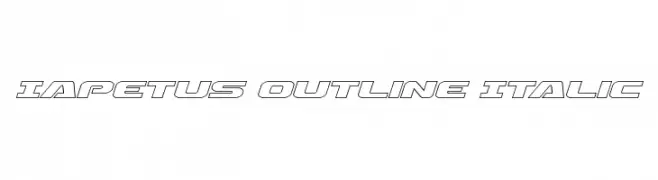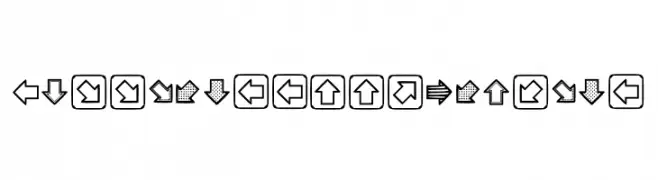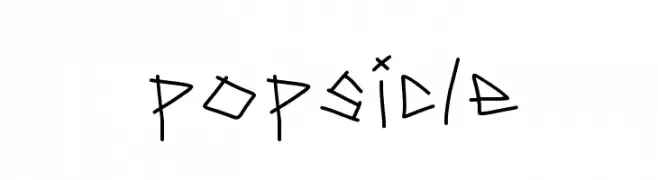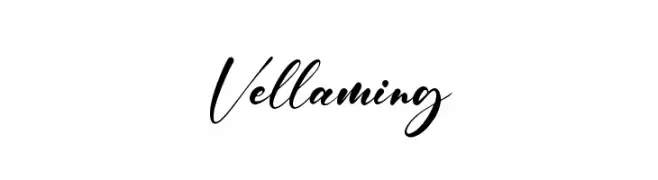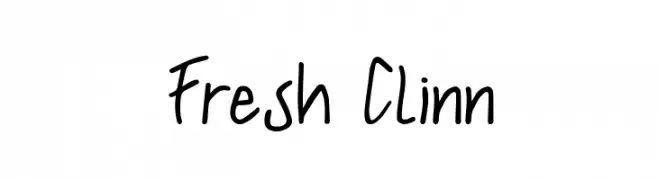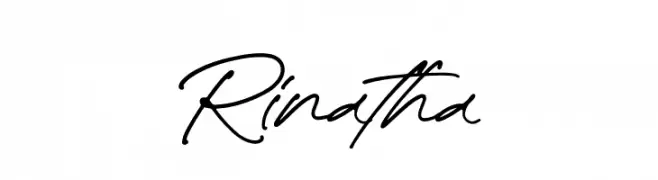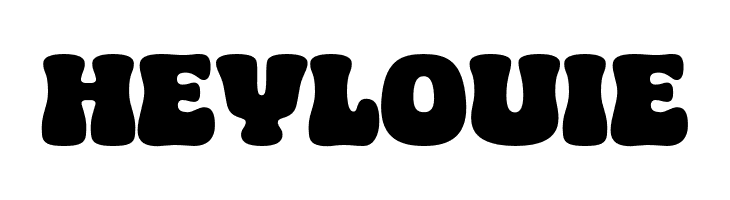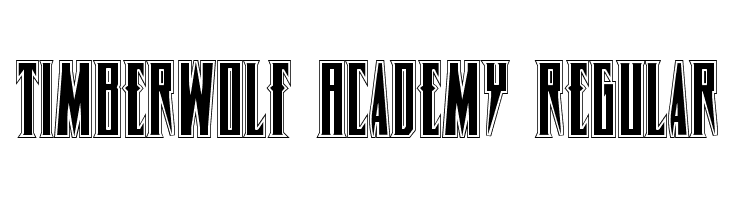
A modern, italic outline font with a futuristic and dynamic style.
A decorative font featuring diverse arrow designs with bold and patterned styles.
An elegant script font with flowing, interconnected letterforms and ornate swashes.
Casual handwritten font with a playful style.
A playful, hand-drawn font with quirky, irregular strokes.
A graceful script font with flowing, interconnected strokes and decorative flourishes.
A playful, informal handwritten font with a casual and friendly vibe.
A fluid and elegant handwritten script font with connected cursive strokes.
A bold, decorative font with a mechanical and futuristic design.